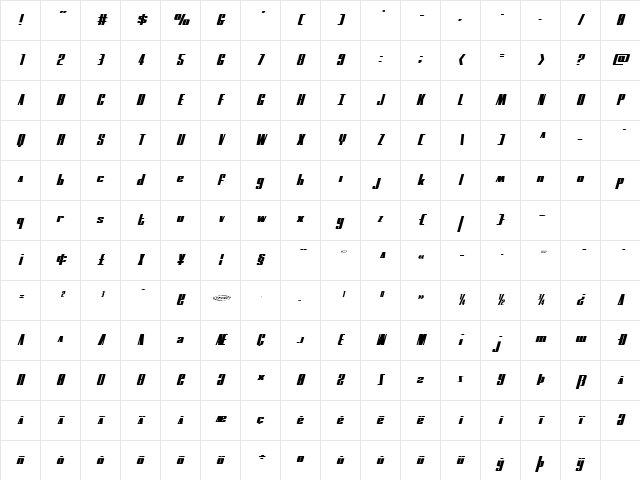
MOON Runner Extra-Squat Italic Free Font
MOON Runner Extra-Squat Italic
MOON Runner Extra-Squat Family
Complete MOON Runner Extra-Squat Italic glyph index. Displaying only characters natively supported by MOON Runner Extra-Squat Italic font.
Design Context for MOON Runner Extra-Squat
MOON Runner Extra-Squat is a composed and adaptable typeface that performs quietly and consistently across a wide range of design contexts. The slanted form adds forward momentum and visual energy.
Pro Tip: Use MOON Runner Extra-Squat for emphasis, pull quotes, and subheadings where its slanted energy can add rhythm to the layout.